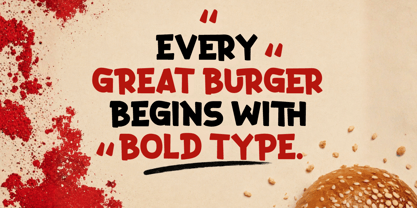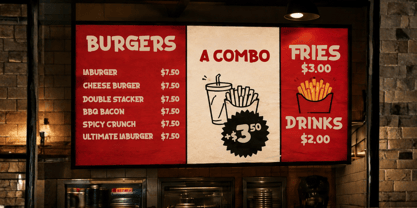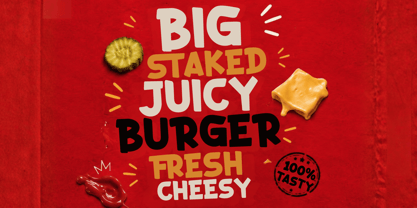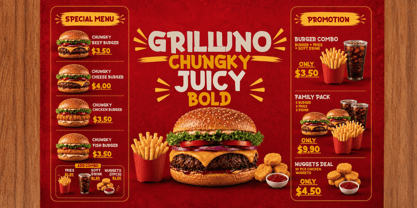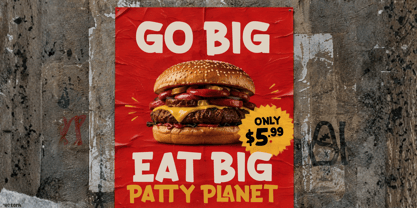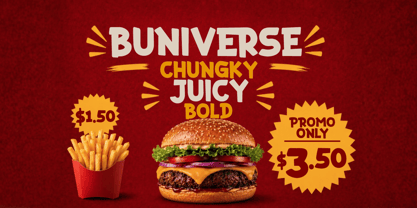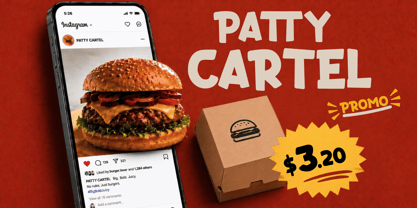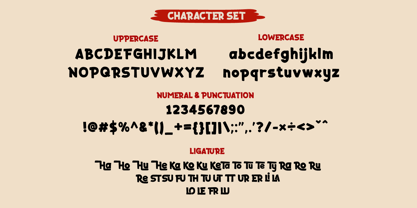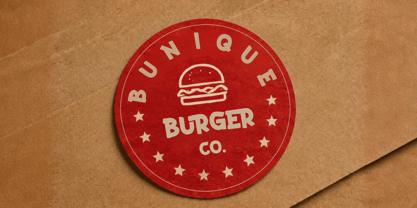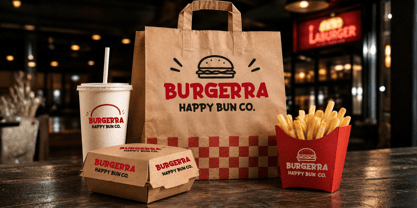
Laburger is a bold display font inspired by the vibrant world of burgers, street food, and modern culinary branding. Its chunky letterforms and playful personality create an eye-catching appearance that instantly grabs attention, making it perfect for impactful headlines and memorable food branding.
Designed to maximize visual appeal, Laburger works beautifully for burger restaurant logos, fast food brands, café identities, food packaging, menu designs, promotional posters, advertising campaigns, social media graphics, merchandise, and other creative projects that require a bold and friendly display typeface.
Combining modern style with a fun and approachable look, Laburger helps designers and business owners create strong visual identities that stand out in a competitive market. Whether you're building a new food brand or refreshing an existing one, this font delivers a deliciously bold impression.